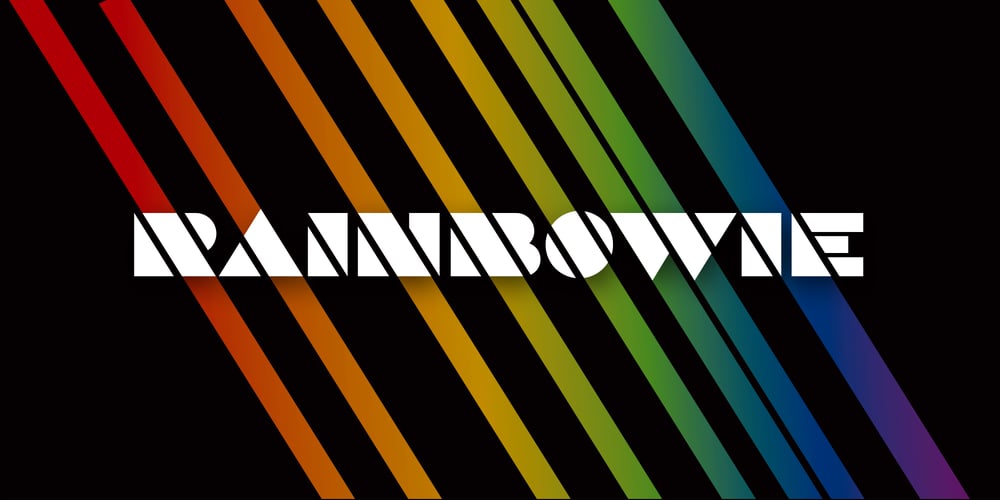
Rainbowie Font Family was designed by Stephan Kamperman and published by Stephan Kamperman. Rainbowie contains 9 styles and family package options. Rainbowie is a font that’s ideally used for festivals, artists and logos. It has 3 different widths to make it ideal to use in small and wide spaces. The font has a stencil style that can be used in suprising ways for an unique touch in your design. It also provides several special characters with a star, sun, cloud, trees, guitar, lightning bold and heart.